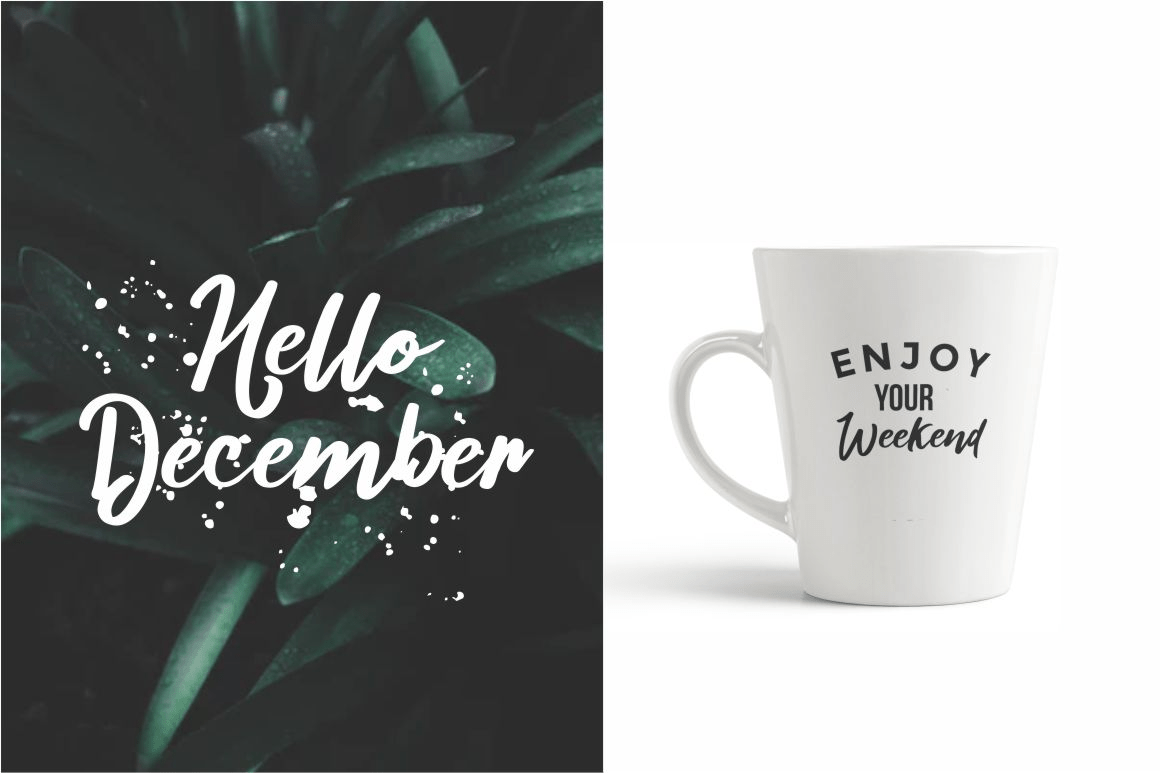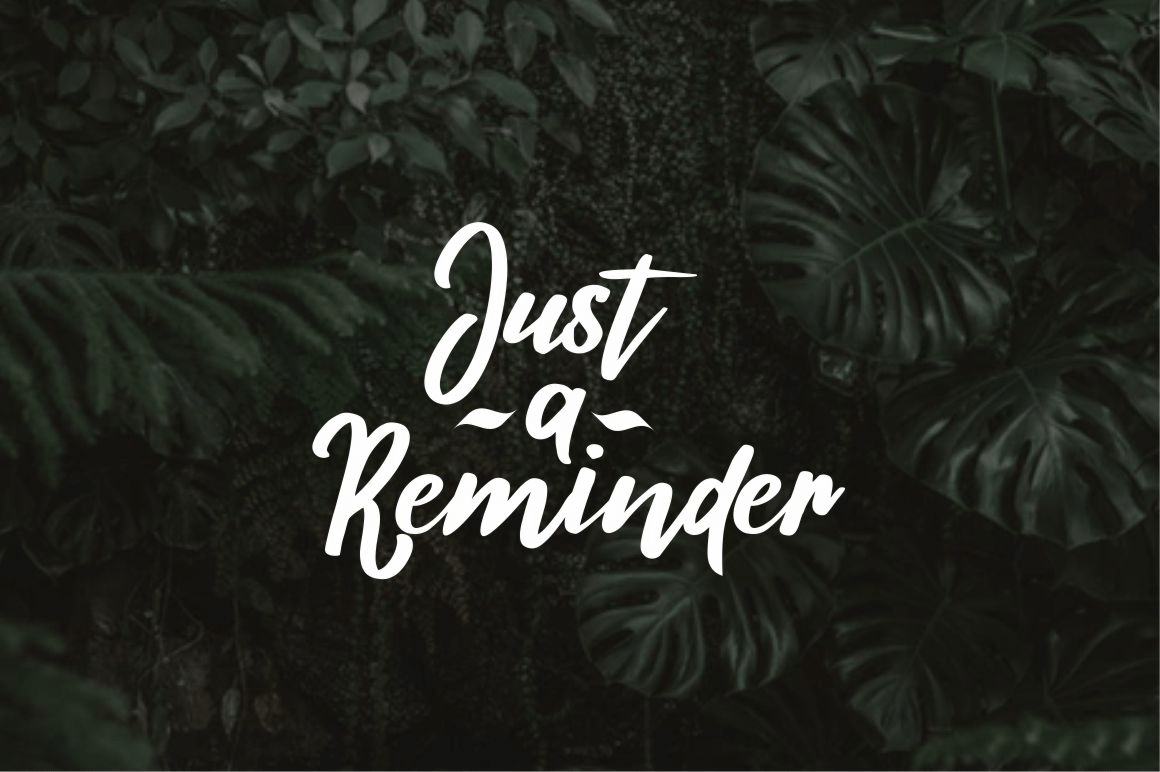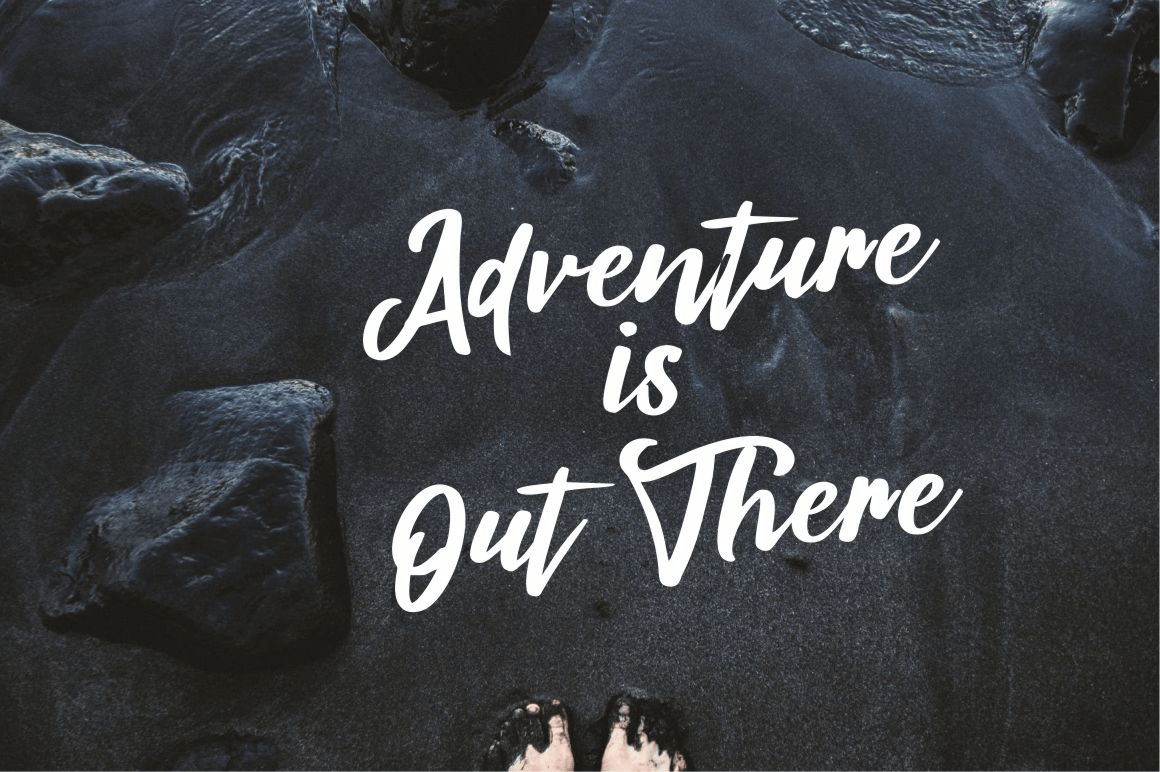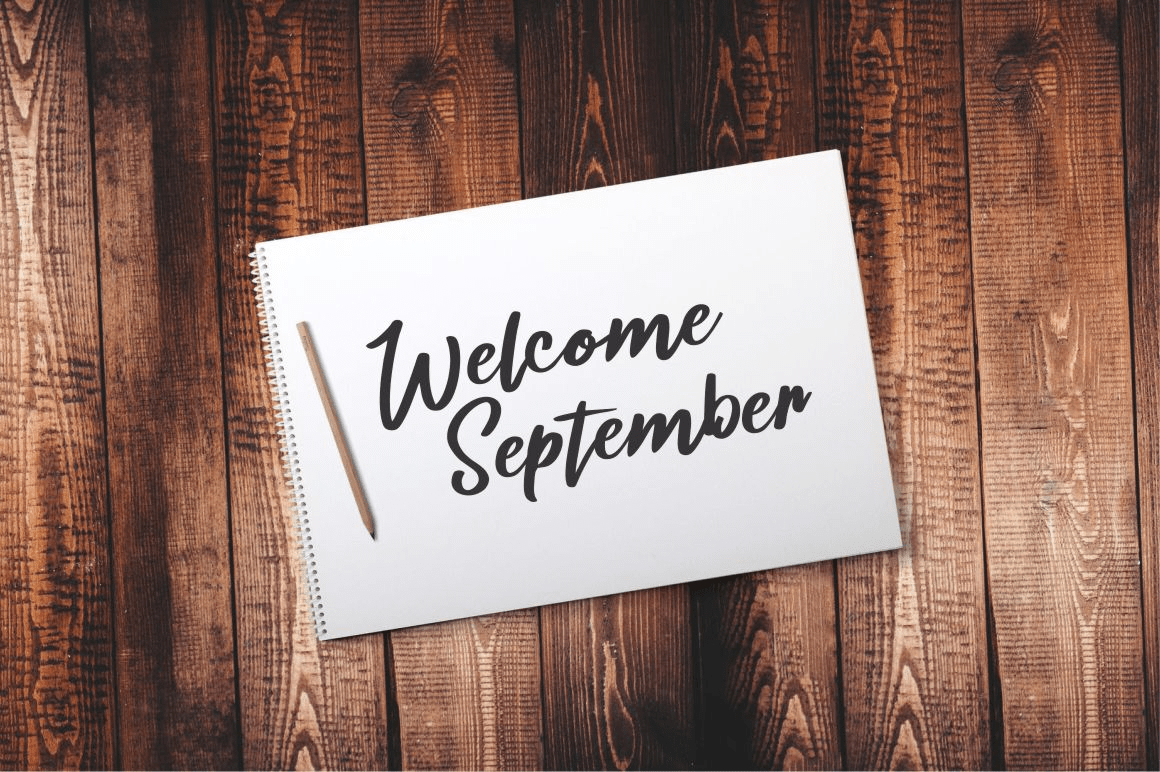
About Tamiela
Tamieala is the brush font.this font perfect for adding some romance and charm to your designs. This script functions most strongly as a display or headline font. suitable for logo, logotype, branding, fashion, label, book cover, t-shirt, instagram post,…